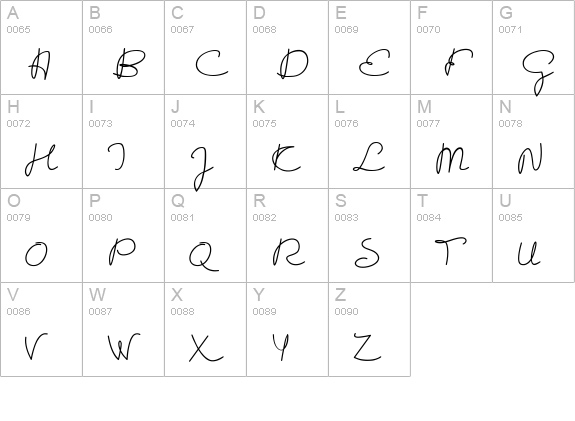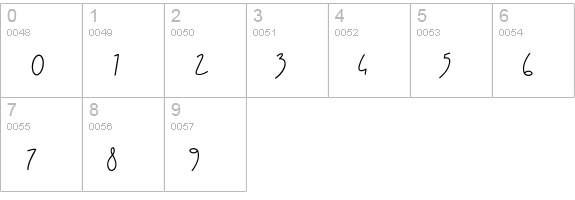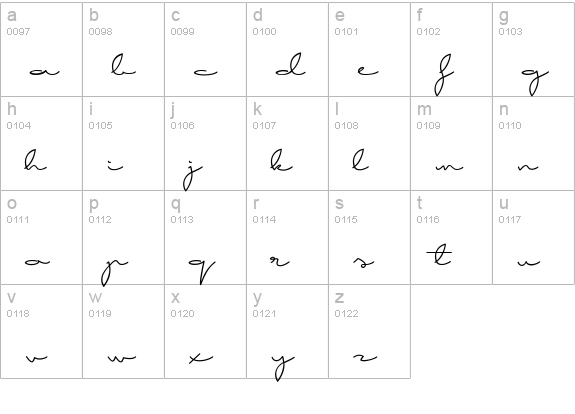
Good Karma Demo is a stunning display font that exudes positivity and charm. With its unique and artistic letterforms, this font is sure to make a lasting impression in any design project. The smooth curves and intricate details of each character create a harmonious balance, reflecting the essence of good karma. This font is perfect for adding a touch of elegance and sophistication to your branding, logos, headlines, posters, and more. Its versatile nature allows it to be used in a variety of design styles, from modern and minimalistic to vintage and retro. But what makes Good Karma Demo even more special is the fact that it is completely free. Yes, you read that right! This font is freely available to download at FontsMarket.com. Now you can add a touch of good karma to your designs without breaking the bank. Whether you're a professional designer or just someone looking to add a little extra flair to your personal projects, Good Karma Demo is a font that will not disappoint. Its eye-catching aesthetics and generous availability make it a must-have for anyone in search of high-quality fonts. So why wait? Download Good Karma Demo for free today at FontsMarket.com and start spreading good vibes with your designs. Let this font be a reminder to always choose kindness and positivity in everything you do.